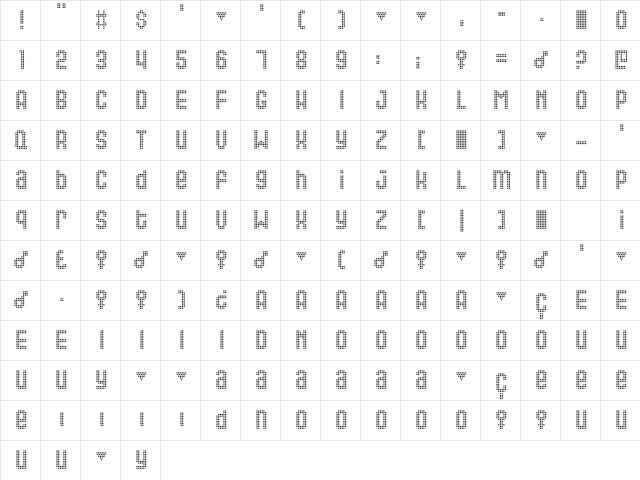
Queer Regular Free Font
Queer Regular
Design Context for Queer
Queer is a composed and adaptable typeface that performs quietly and consistently across a wide range of design contexts.